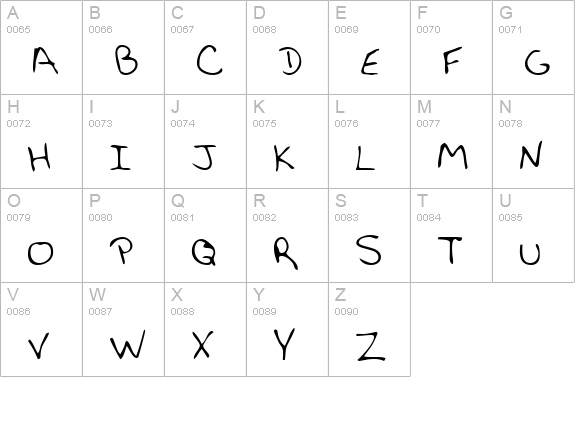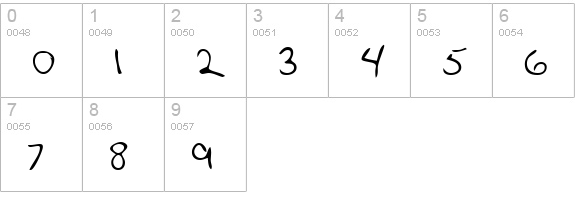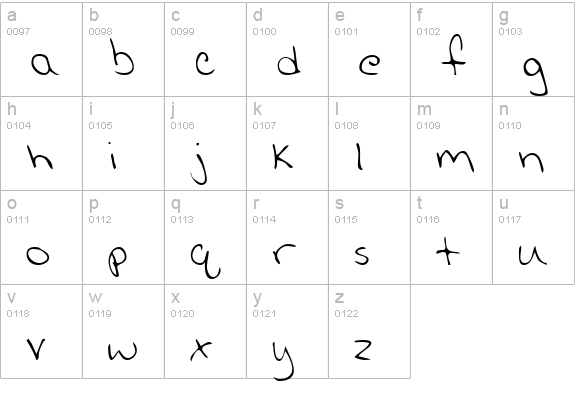
LisasHand Regular Font Details
LisasHand Regular is the standard, neutral variant in the LisasHand typeface family \xE2\x80\x94 well suited to general body text, paragraphs, and standard typographic work.
LisasHand Regular font is a charming and elegant typeface that exudes a sense of sophistication and creativity. With its smooth lines and distinctive curves, this font is perfect for adding a personal touch to any project. Whether you're designing invitations, logos, or social media graphics, LisasHand Regular is sure to make your text stand out. The best part? LisasHand Regular is available for free download at FontsMarket.com. This means you can easily access this beautiful font and start using it in your designs right away. Don't miss out on the opportunity to enhance your work with the timeless beauty of LisasHand Regular font. Download it now and let your creativity shine!